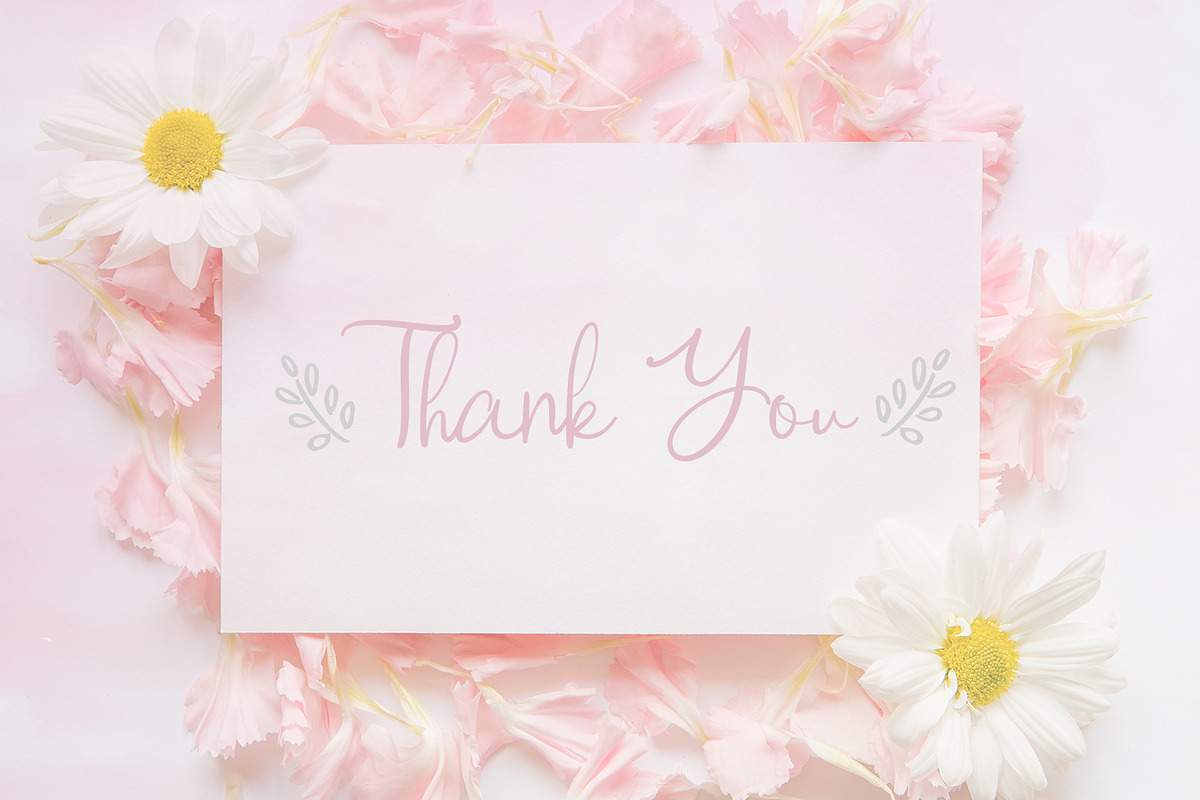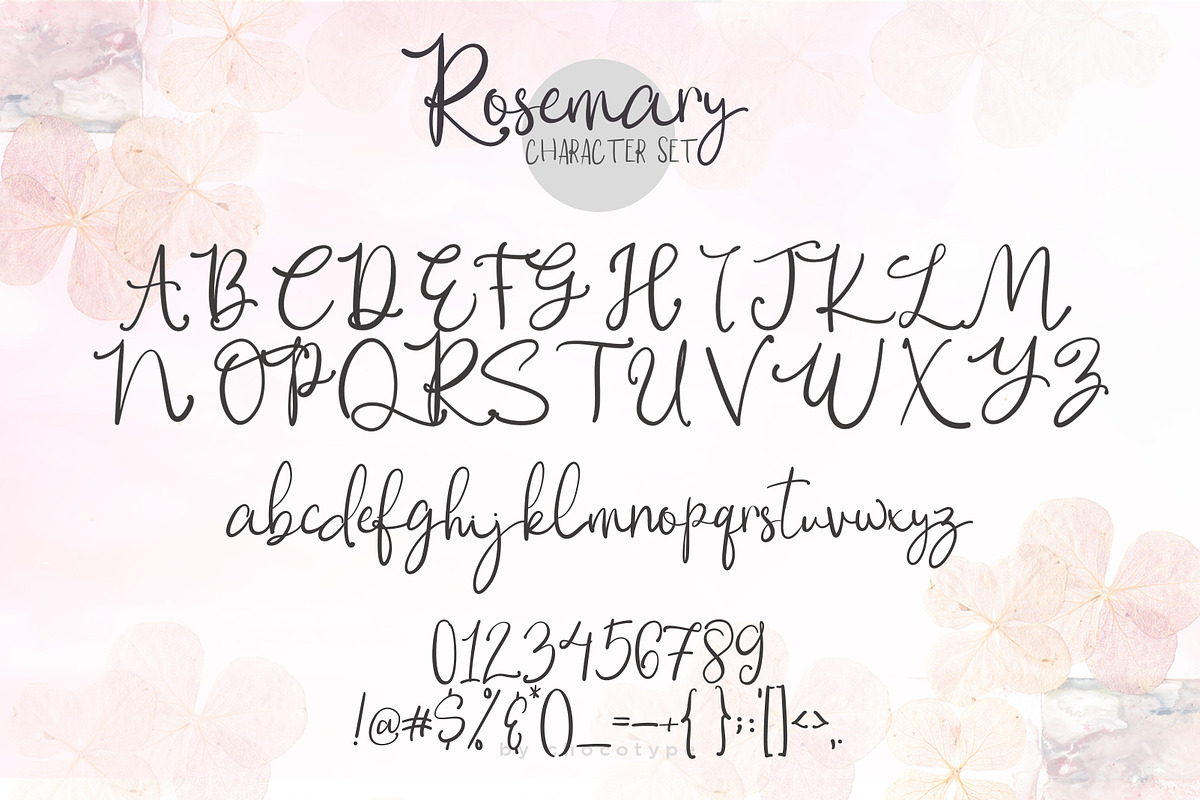
Rosemary Script! with Bonus!
Introducing Rosemary! a sweet and bouncy Handwritten font! with extra doodles to make it more like hadwritten :)
Rosemary is a handmade typeface, with cute character and a very bouncy baseline :).
Rosemary Script has a large variety of alternate characters ,allowing you to make each word look completely unique to the next! Ligatures are also included. It has multilingual support with accented characters for international users.